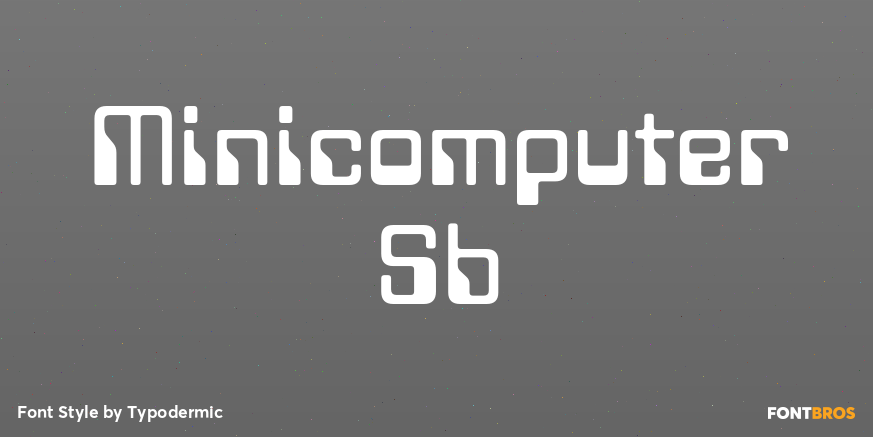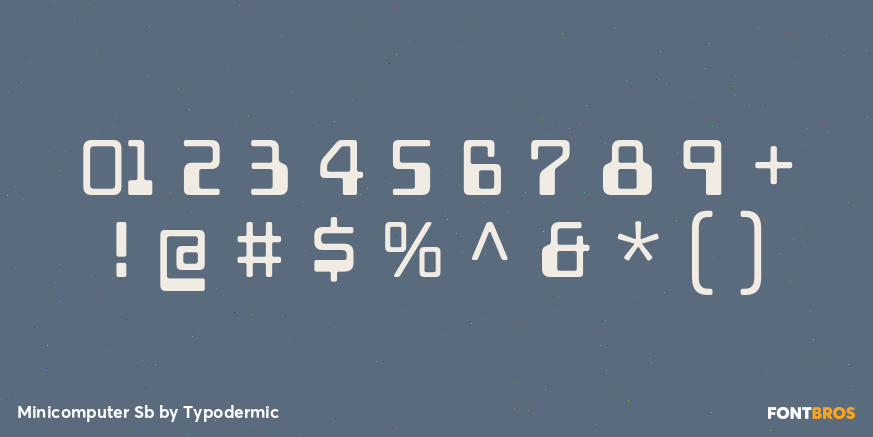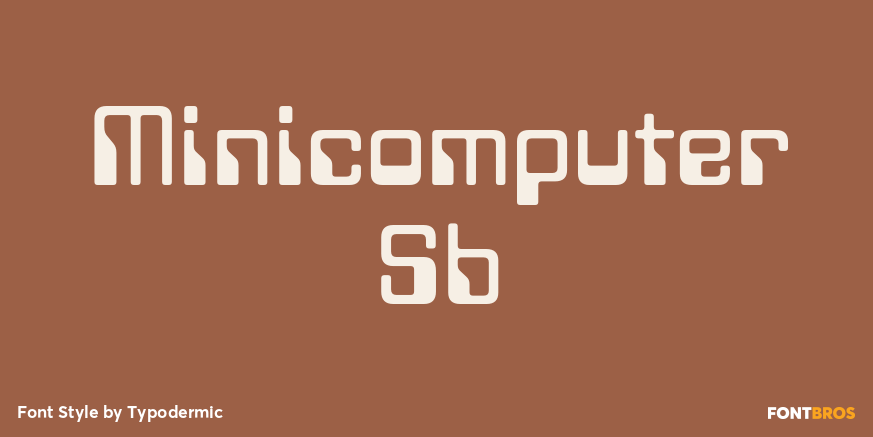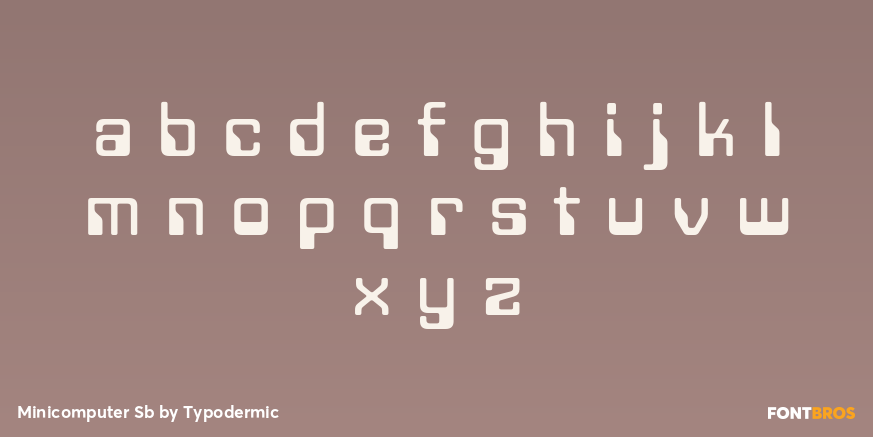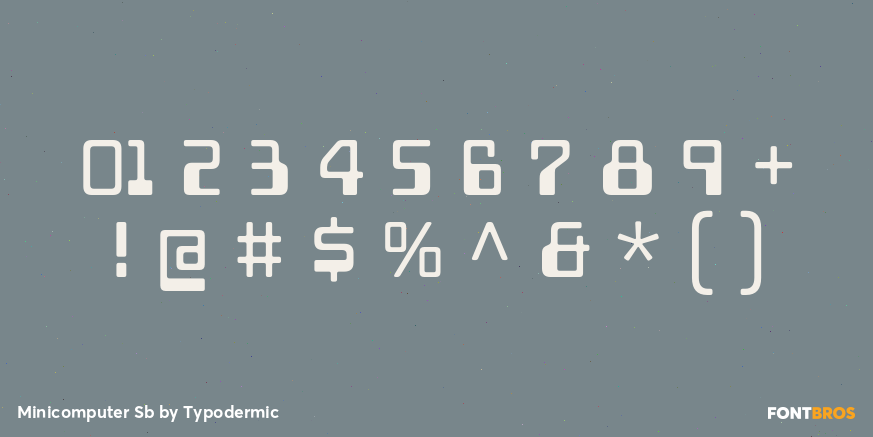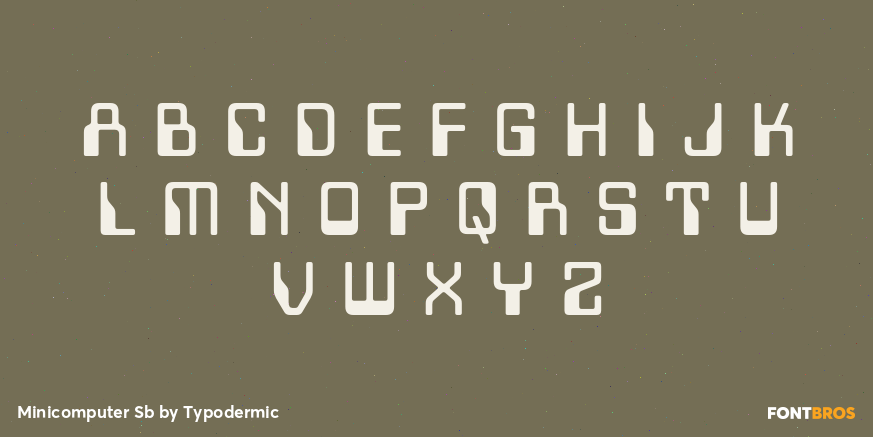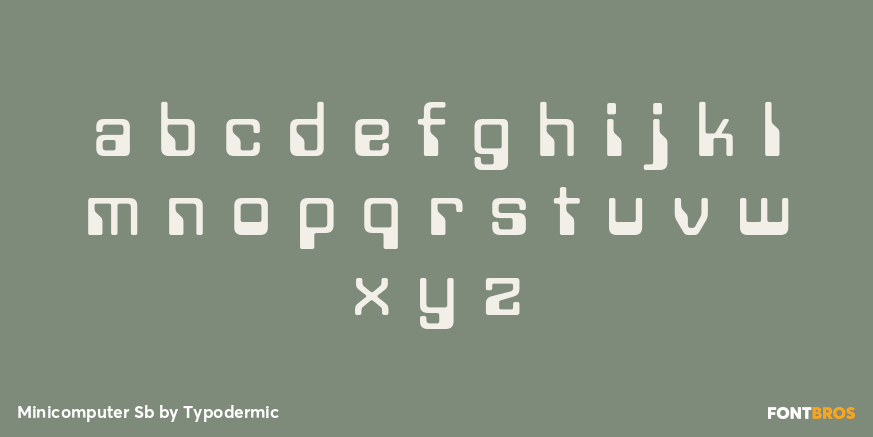
Minicomputer Sb
Buy NowFashion is accumulating an administrative layer. Garments are increasingly identified by product codes, authentication systems, repair histories, resale documentation and digital product information. If every jacket, shoe and bag is going to be entered into a system, Minicomputer takes the instruction almost literally: it gives the human-facing typography the visual language of machine processing too.
The joke is deliberate, but the typeface is not pretending to be machine-readable. Minicomputer draws on the unmistakable forms of MICR lettering, then expands that narrow vocabulary into a full display family. The QR code or database does the actual identification; Minicomputer makes the collection name, product ID, provenance heading or verification message look as though the administrative system has taken over the art direction.
That makes product passports, authentication cards, resale certificates, repair records, woven labels and hangtags unusually natural territory. MODEL 047, ARCHIVE 22, VERIFIED, MATERIAL and ORIGIN can become prominent graphic elements rather than back-office information. Technical clothing, footwear and bags extend the idea through model numbers, material systems, specification panels, style codes and colourways.
Seven weights with matching italics let Minicomputer turn a visual category often encountered as a single novelty style into an actual display system. Greek and Cyrillic extend that system well beyond the limited repertoire associated with historical MICR lettering.
The financial ancestry still has uses of its own. Market reports, fintech campaigns, investment-conference graphics and economic publishing can use Minicomputer for prices, indices, percentages and financial headlines. Its contemporary purpose, though, may be even more literal: when products are authenticated, numbered, traced, repaired, resold and entered into databases, Minicomputer turns the machinery surrounding them into part of the design.